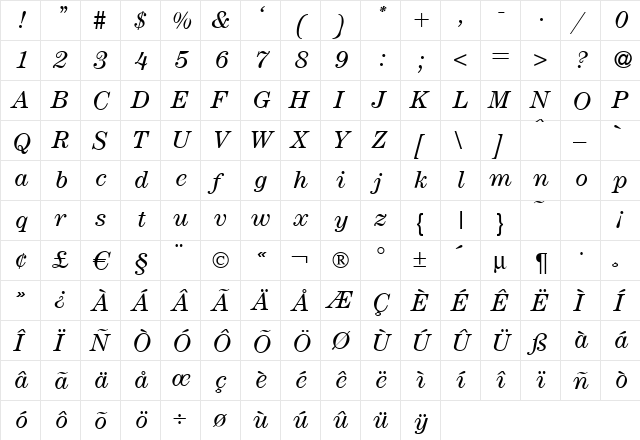
ModernCentury Italic
Design Context for ModernCentury Typeface
ModernCentury is a composed and adaptable typeface that performs quietly and consistently across a wide range of design contexts. The dynamic lean of this cut emphasises speed and emphasis in any layout.
Pro Tip: Try ModernCentury for annotation and caption copy alongside an upright companion — the contrast in angle creates a dynamic but ordered typographic system.